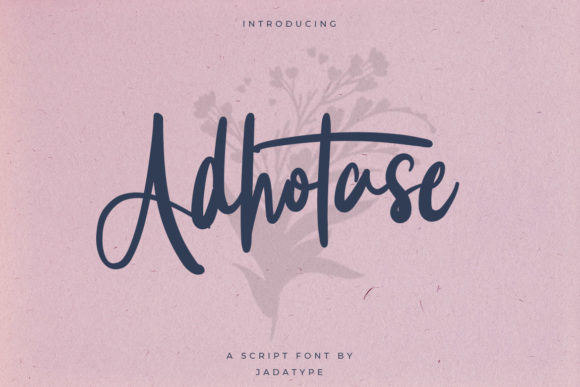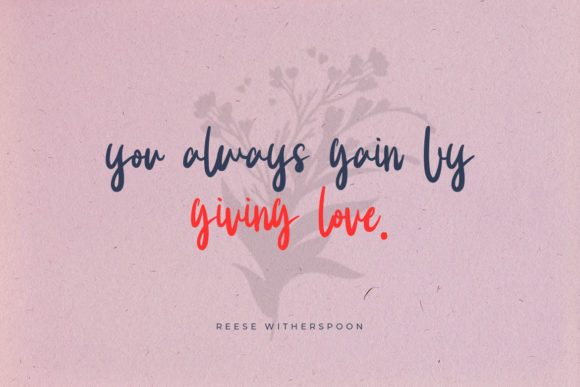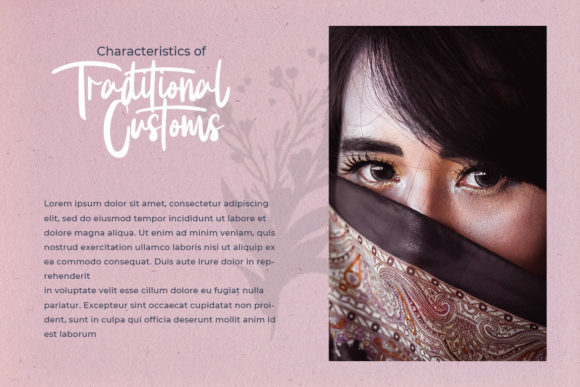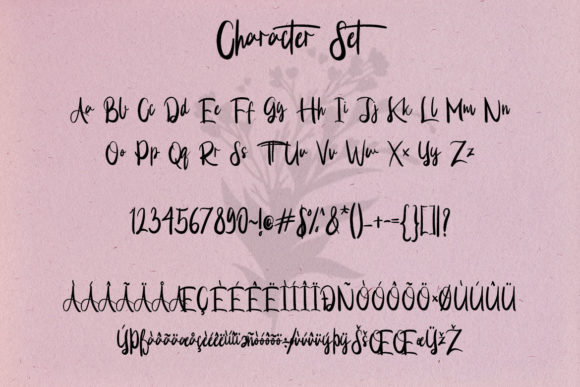
About Adhotase Font
Introducing “Adhotase,” a whimsical script font with a relaxed theme that brings a touch of playfulness and charm to your designs. With its lovely style and versatile nature, this font is a valuable addition to your fonts’ library, capable of enhancing any creative project.
Adhotase captures a whimsical and carefree spirit, making it suitable for a wide range of topics and design purposes. Whether you’re working on branding, packaging, invitations, social media graphics, or any other creative endeavor, this font will add a delightful and unique touch to your designs.
The relaxed and playful nature of Adhotase is reflected in its letterforms. The characters have flowing, organic shapes with subtle variations in stroke width, giving the font a hand-drawn and authentic feel. The whimsical curves and gentle swashes add a touch of elegance and bring a sense of joy to your designs.
One of the great advantages of Adhotase is its versatility. This font can be applied to various design projects, from greeting cards and posters to product packaging and branding materials. Its ability to adapt to different themes and styles makes it a valuable asset in your creative toolkit.
Whether you’re working on a children’s book, a bakery logo, a summer-themed event invitation, or anything in between, Adhotase will elevate your design and bring a sense of lightheartedness and personality to your work.
In conclusion, Adhotase is a whimsical script font that adds a relaxed and charming touch to any design. Its versatile nature and unique style make it a valuable asset for a wide range of creative projects. Whether you’re aiming for a playful or elegant look, Adhotase will enhance your designs and elevate your creations with its delightful and carefree vibe.